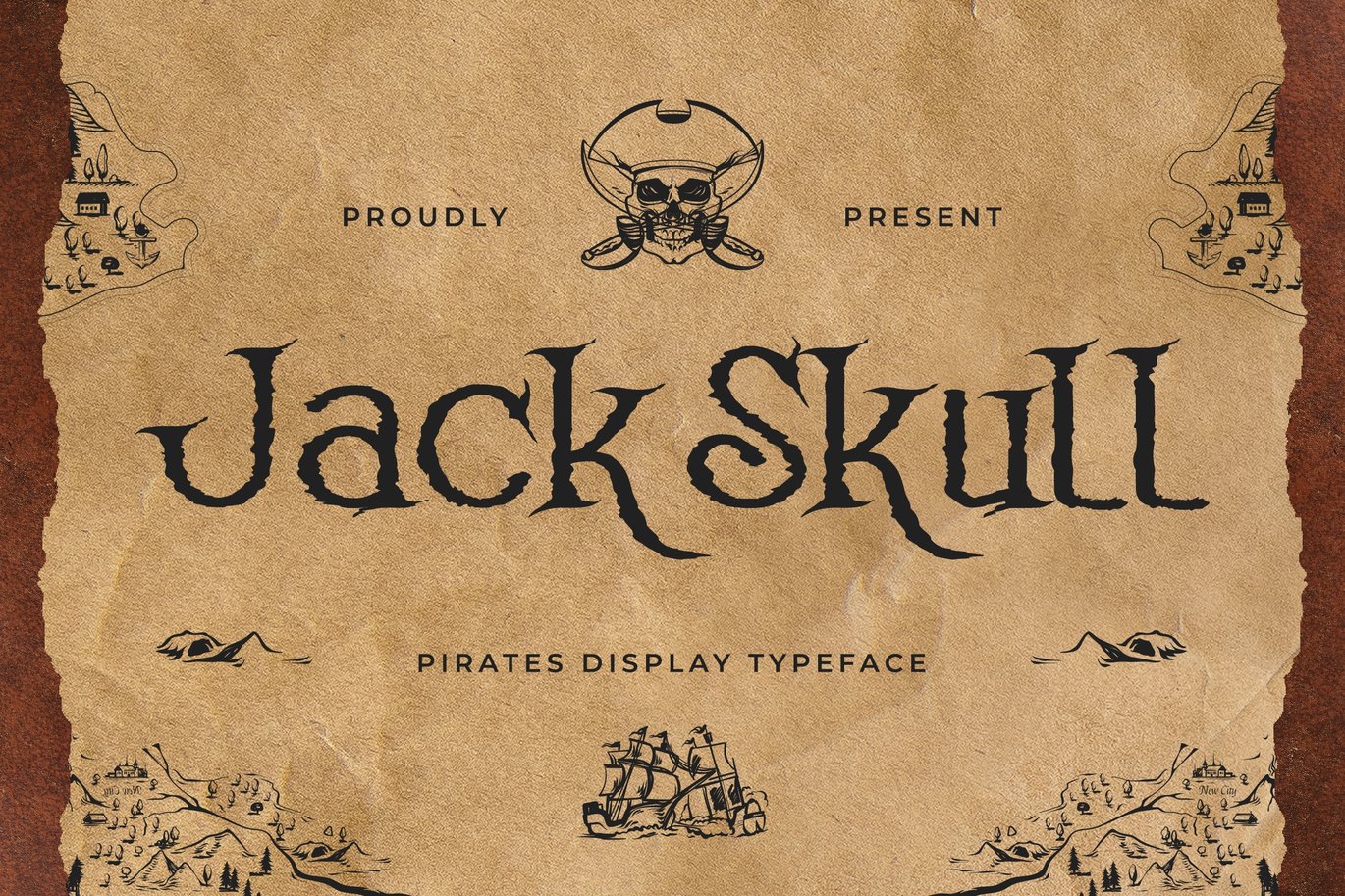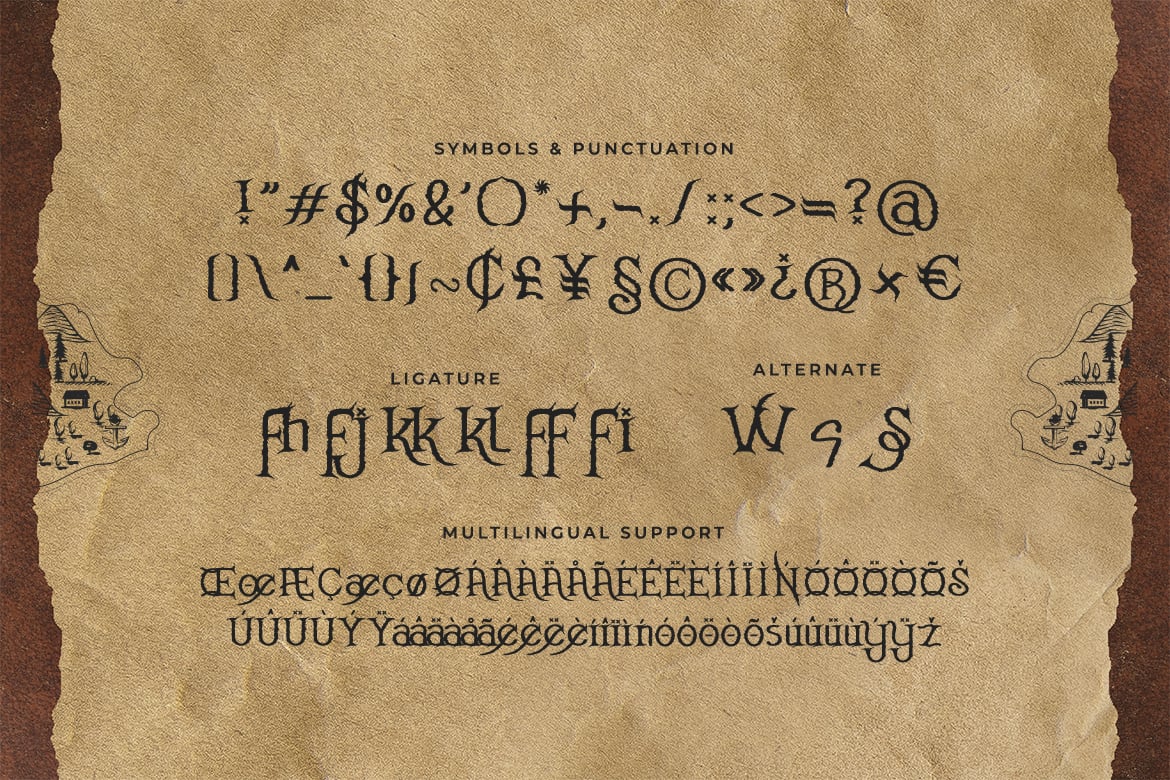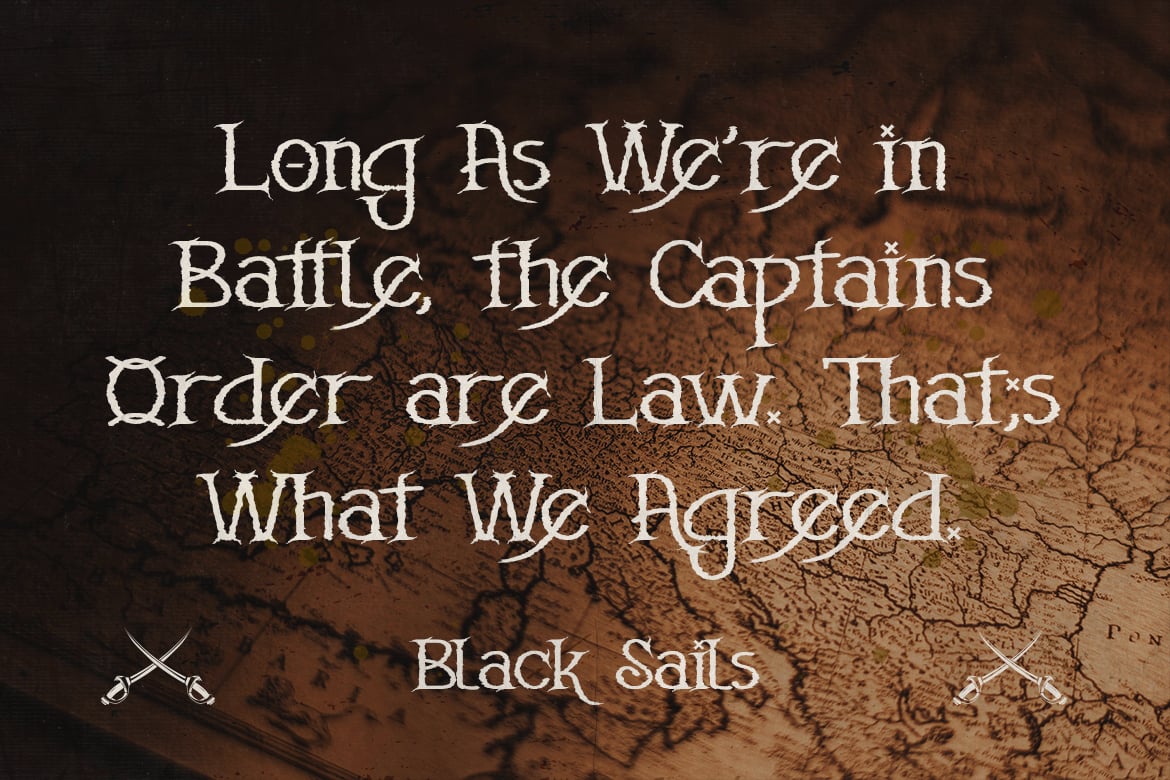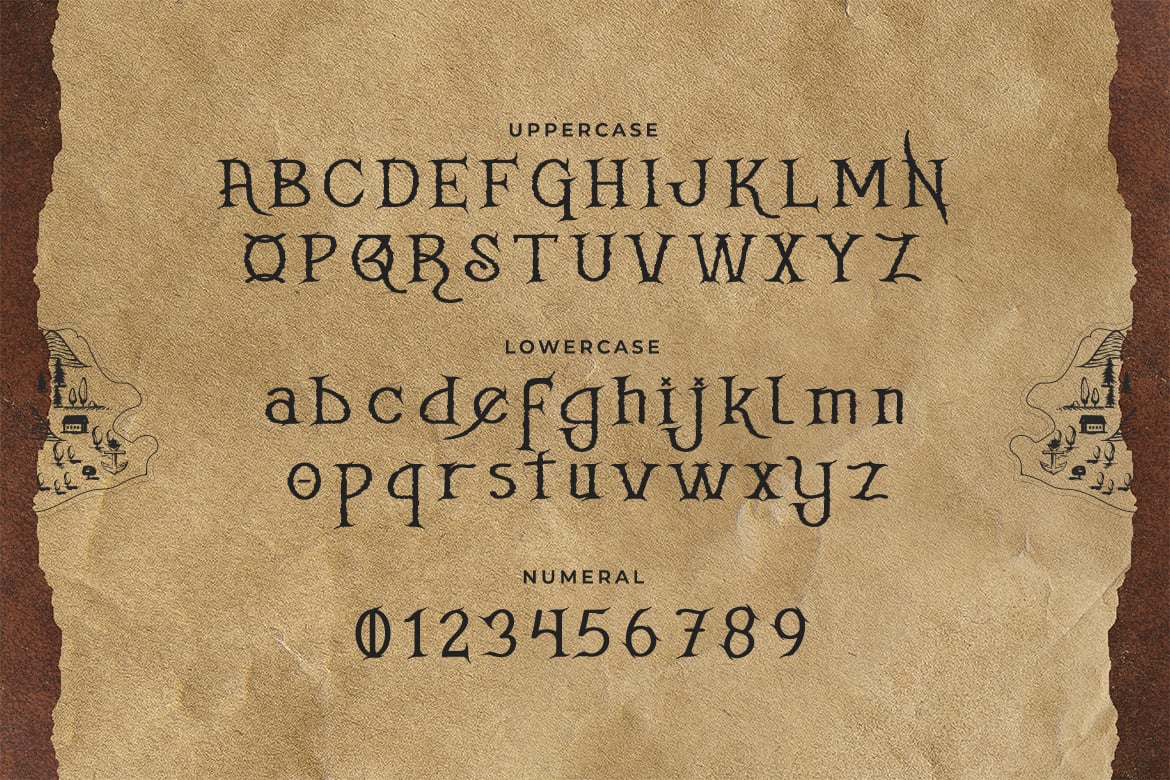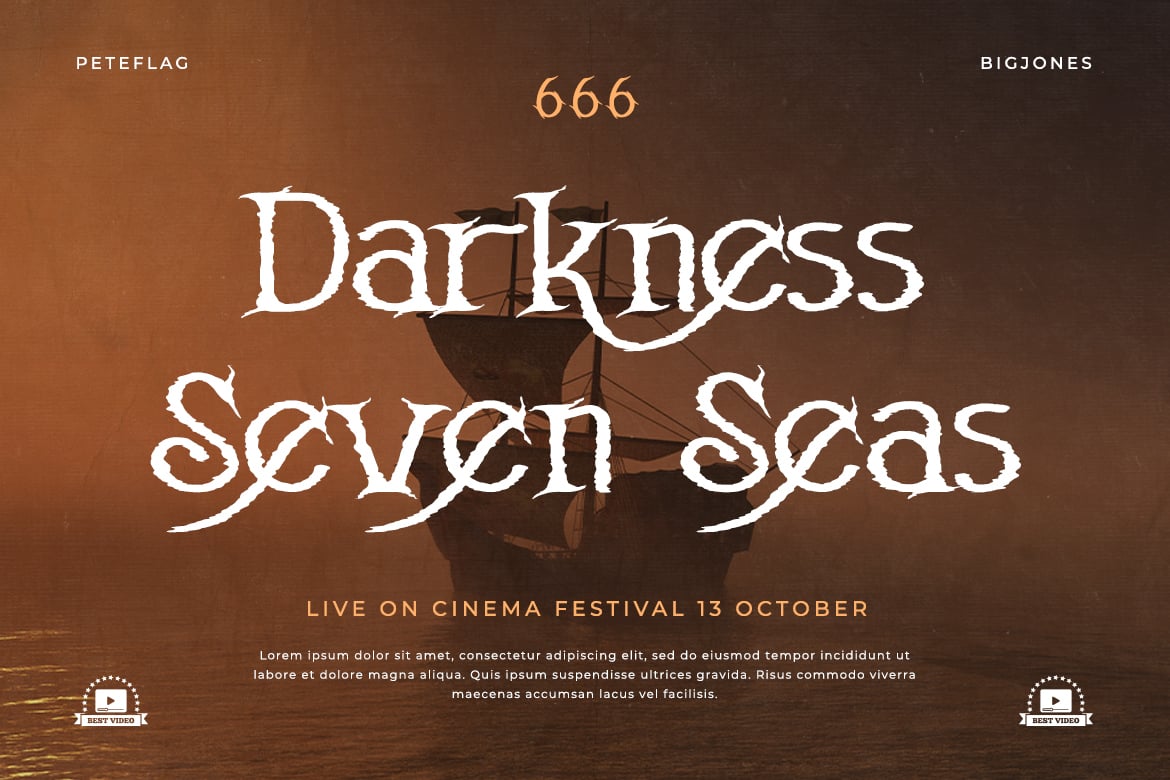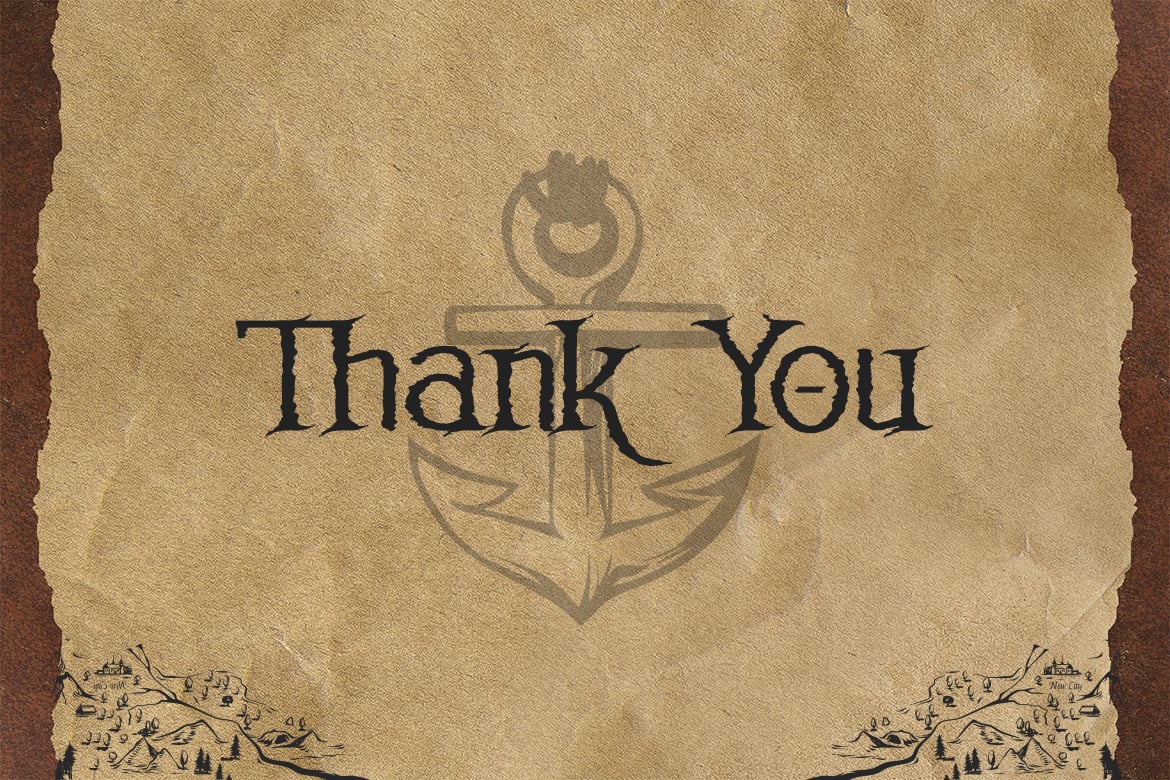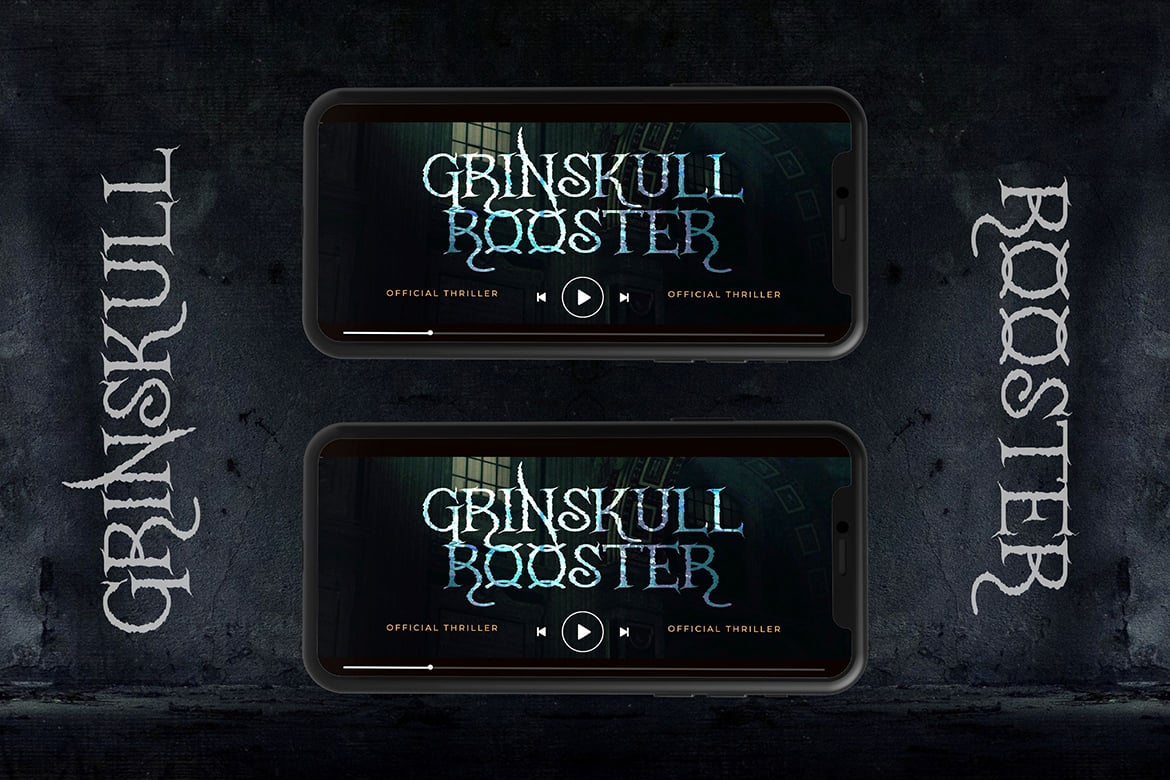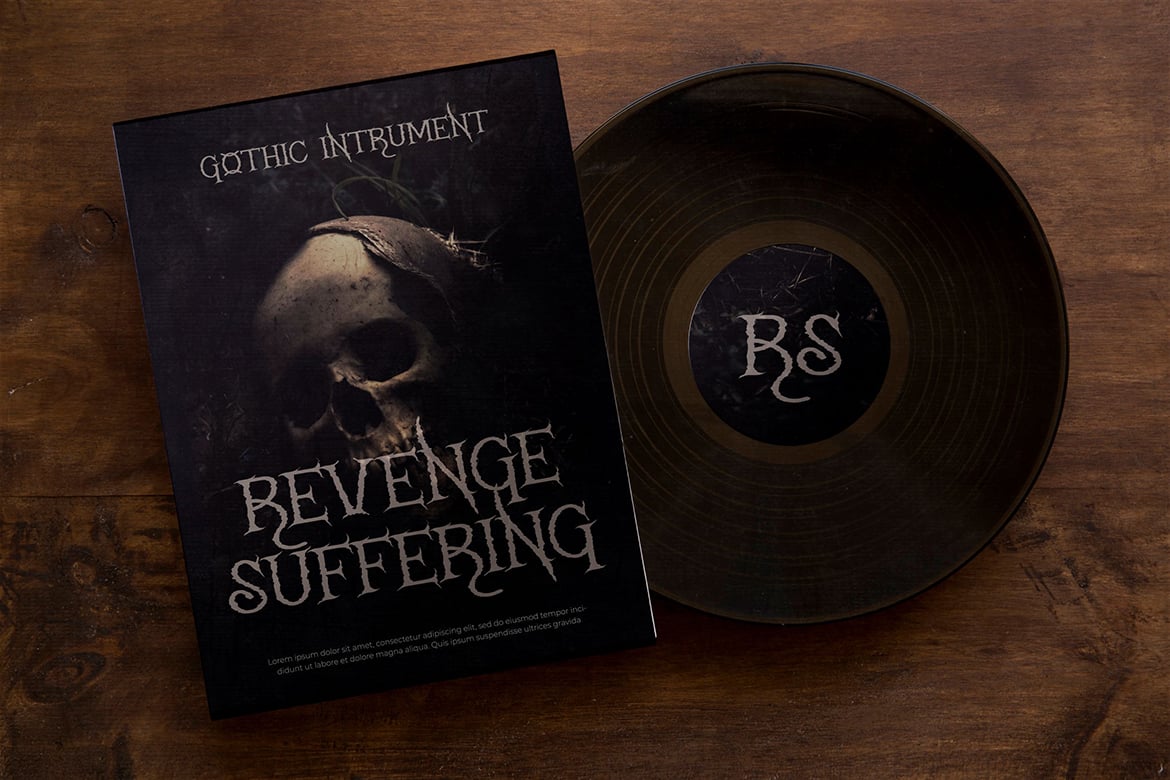
Jack Skull – Pirates Display Typeface
Jack Skull is a pirate fantasy font that will immediately take you into adventure vibes.
This font will be the ideal choice for any movie, game, and pirate-themed design you wish to develop